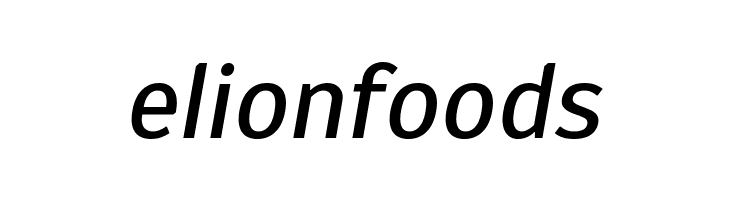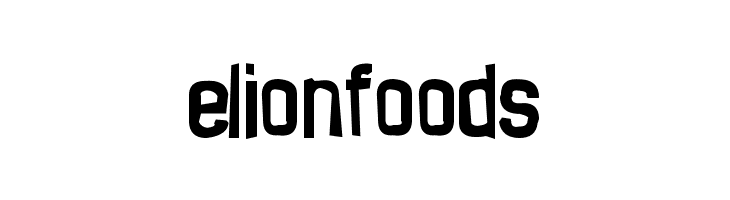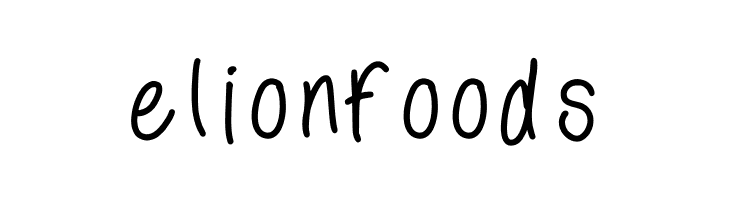
A sleek, modern italic font with smooth, slightly slanted letterforms.
A bold, modern font with tall, slightly condensed characters and minimal contrast.
A playful and modern sans-serif font with rounded edges and a slightly condensed style.